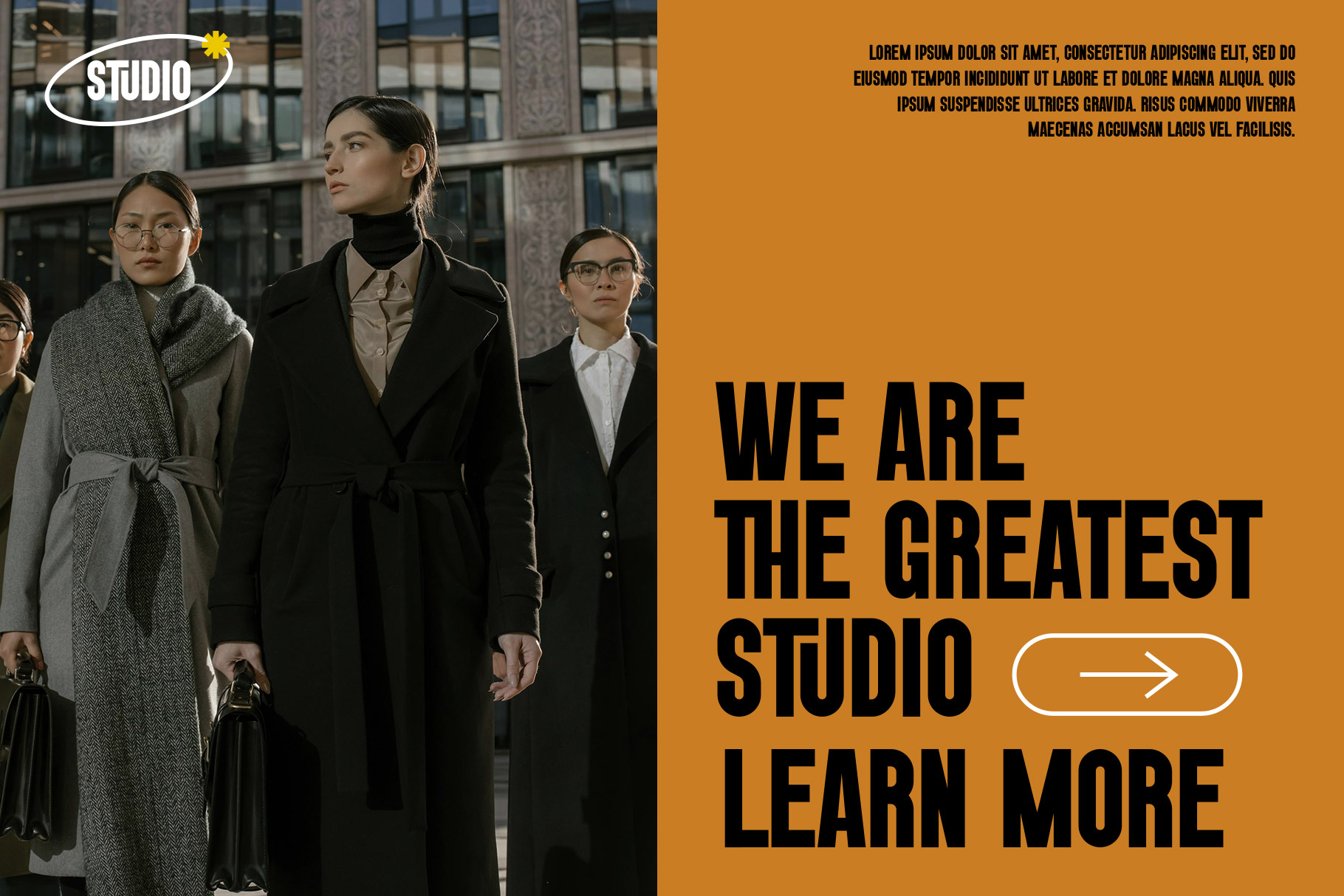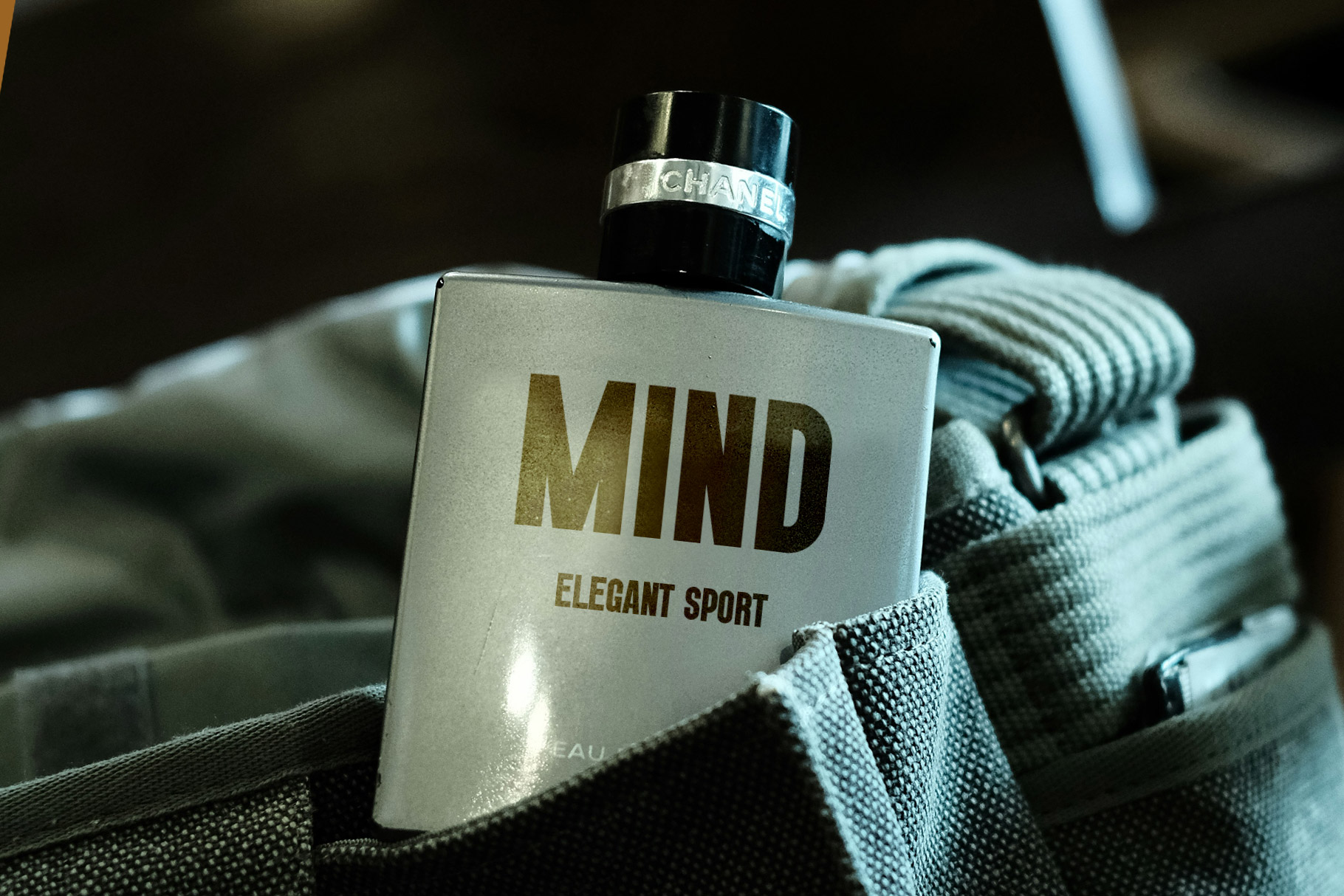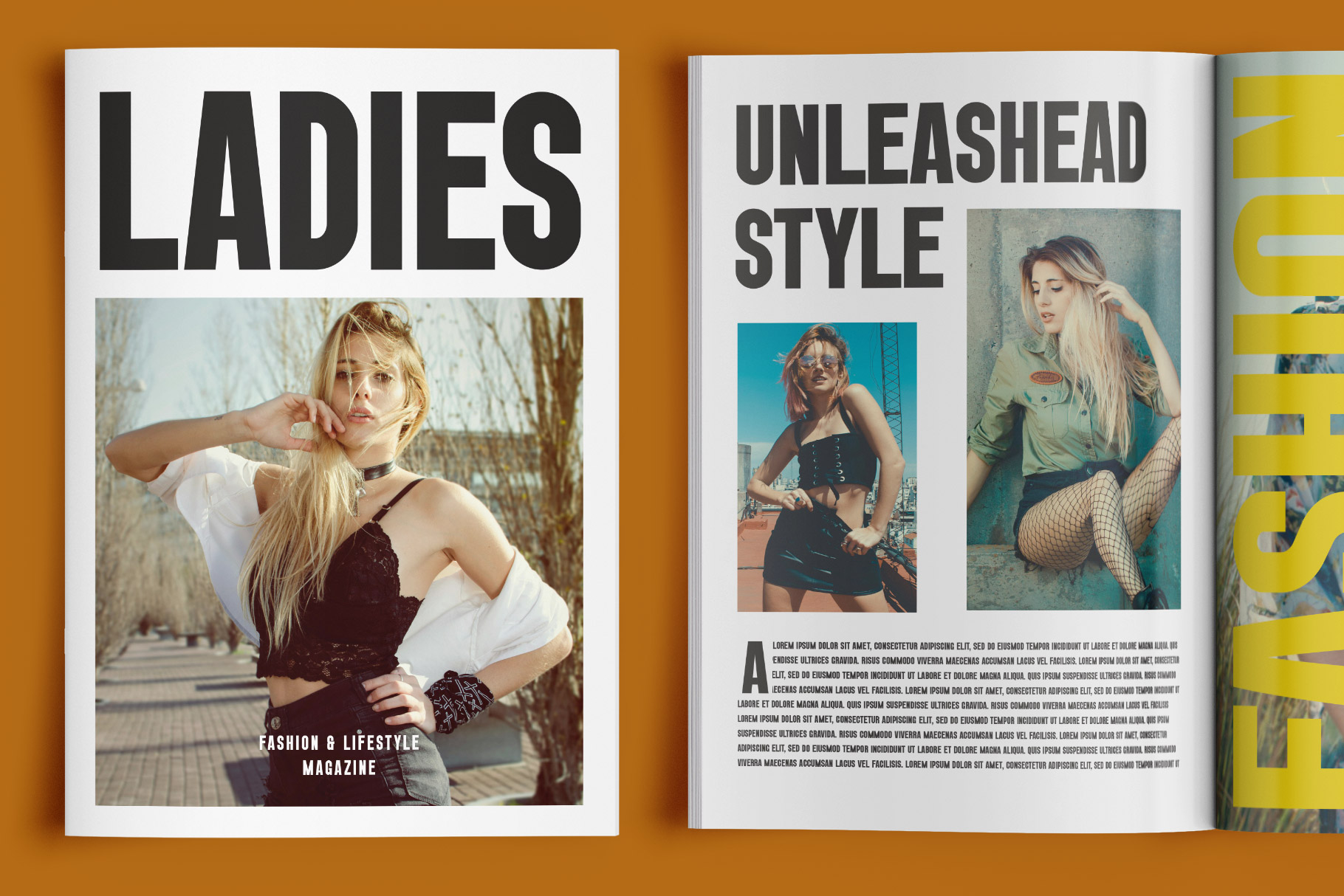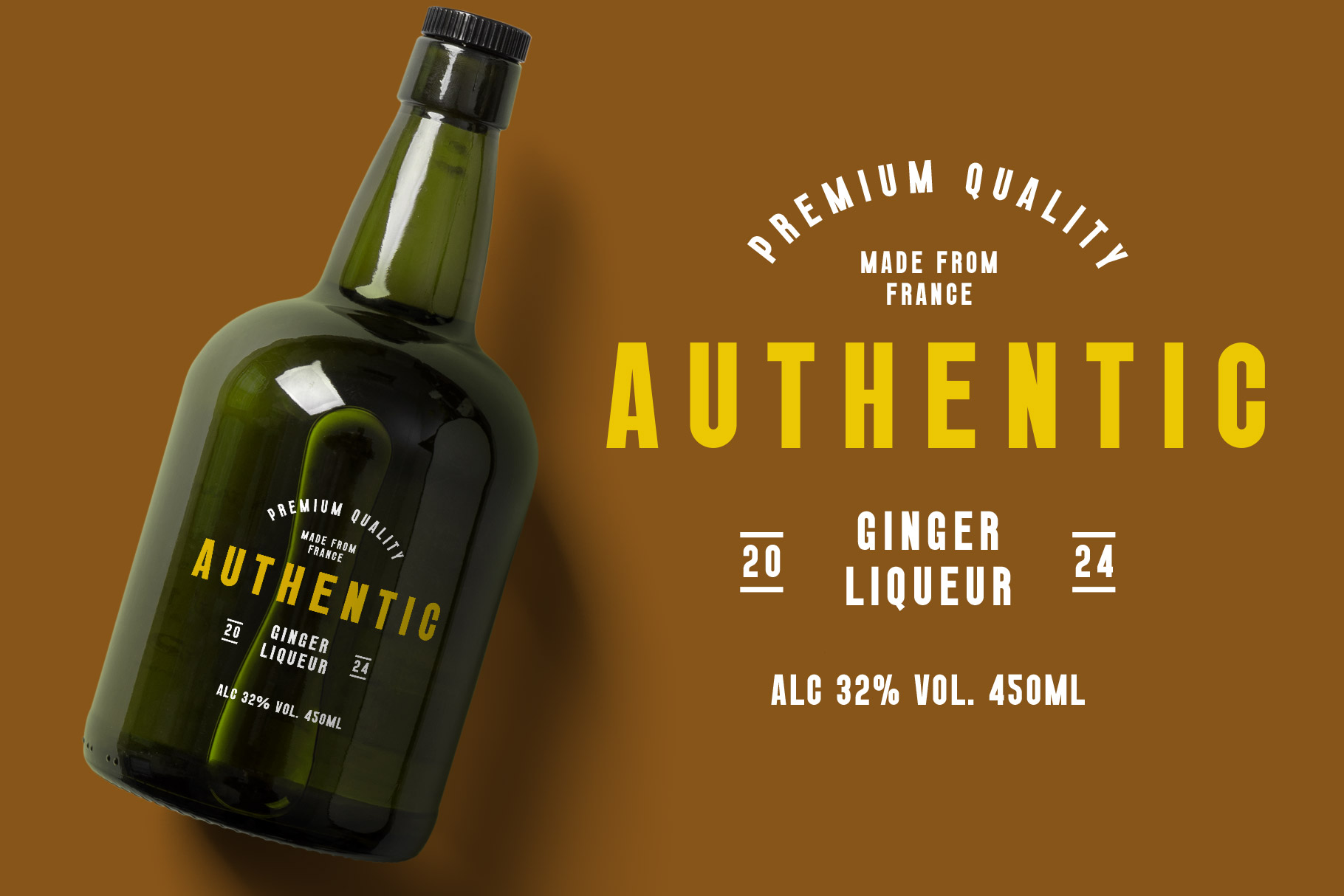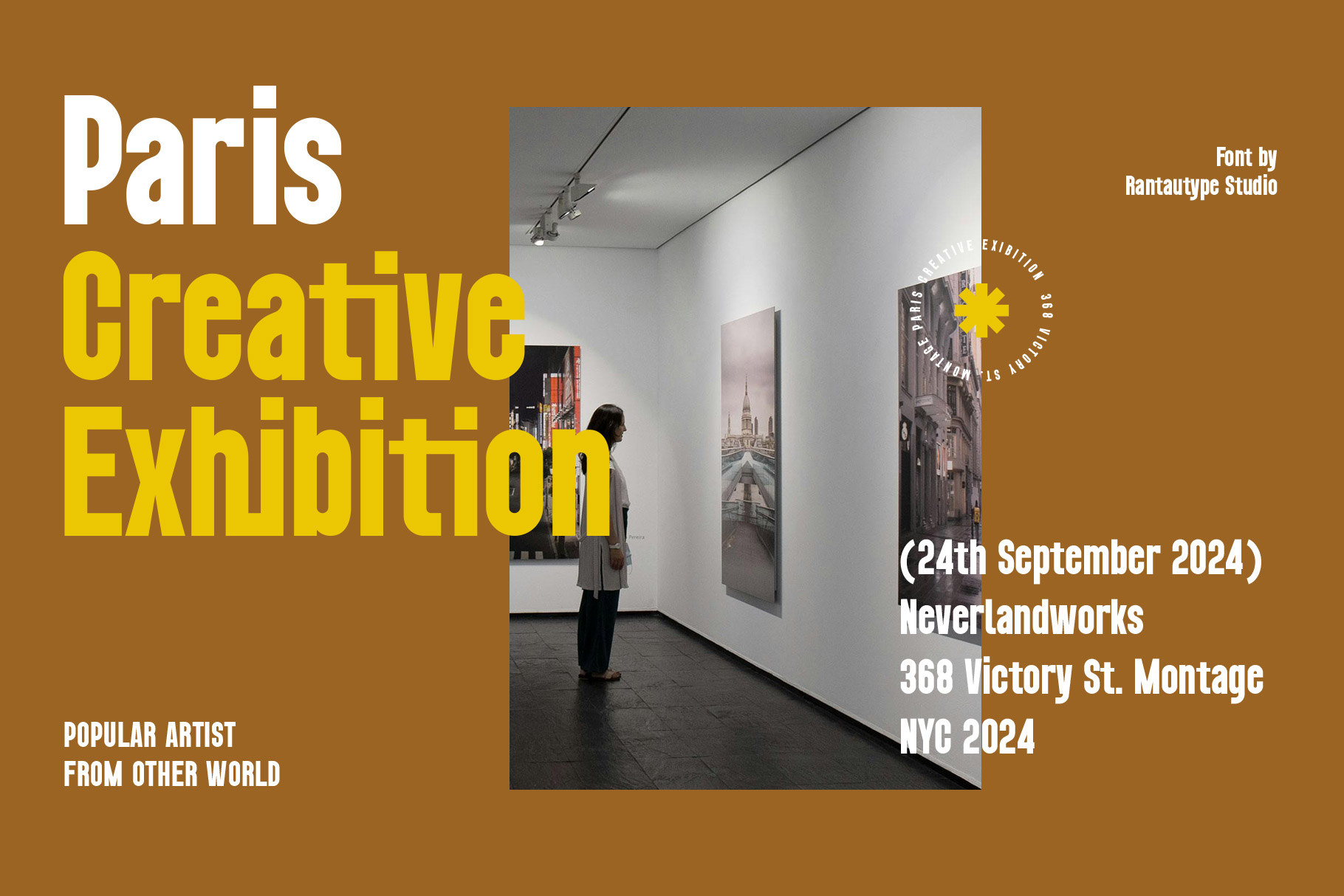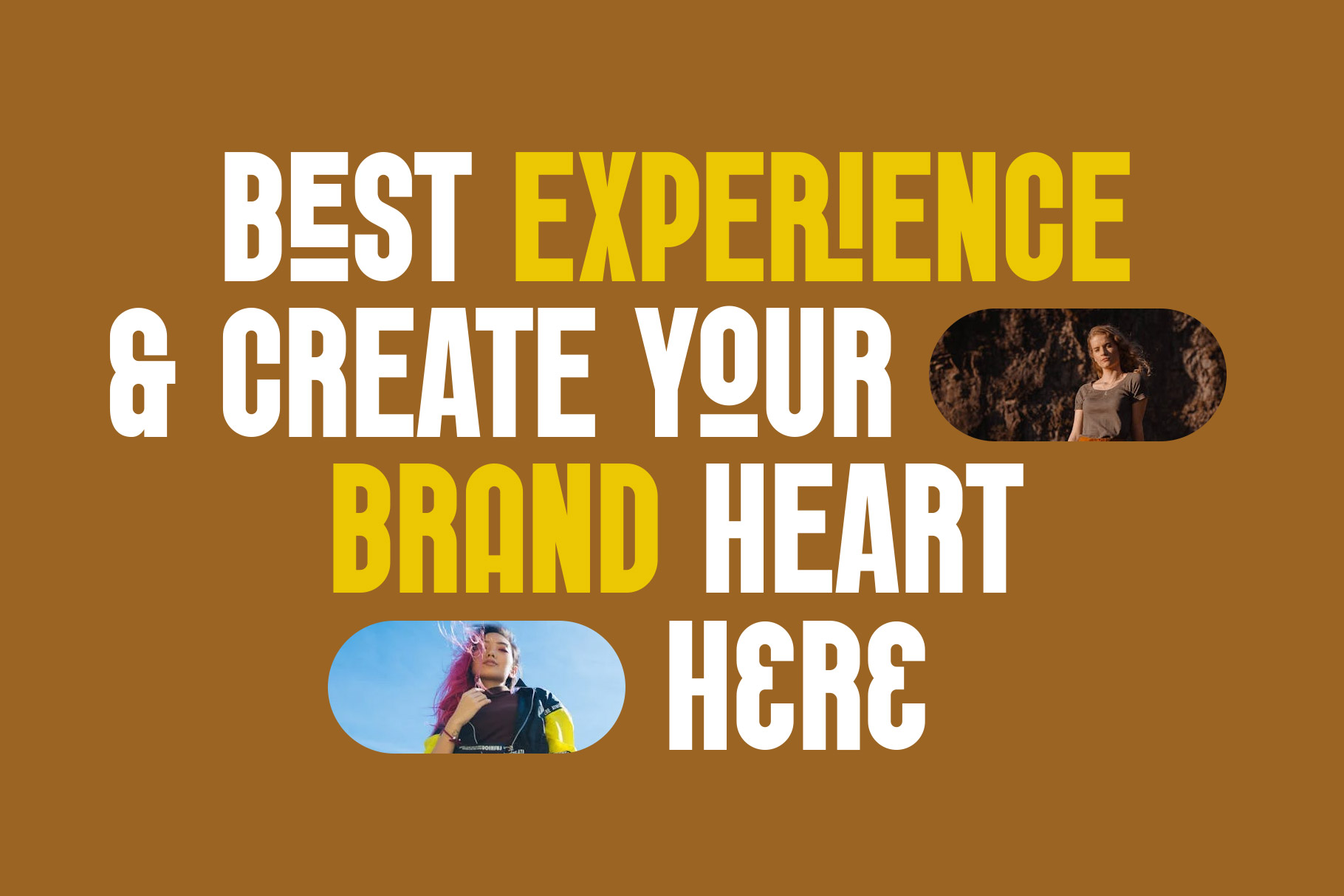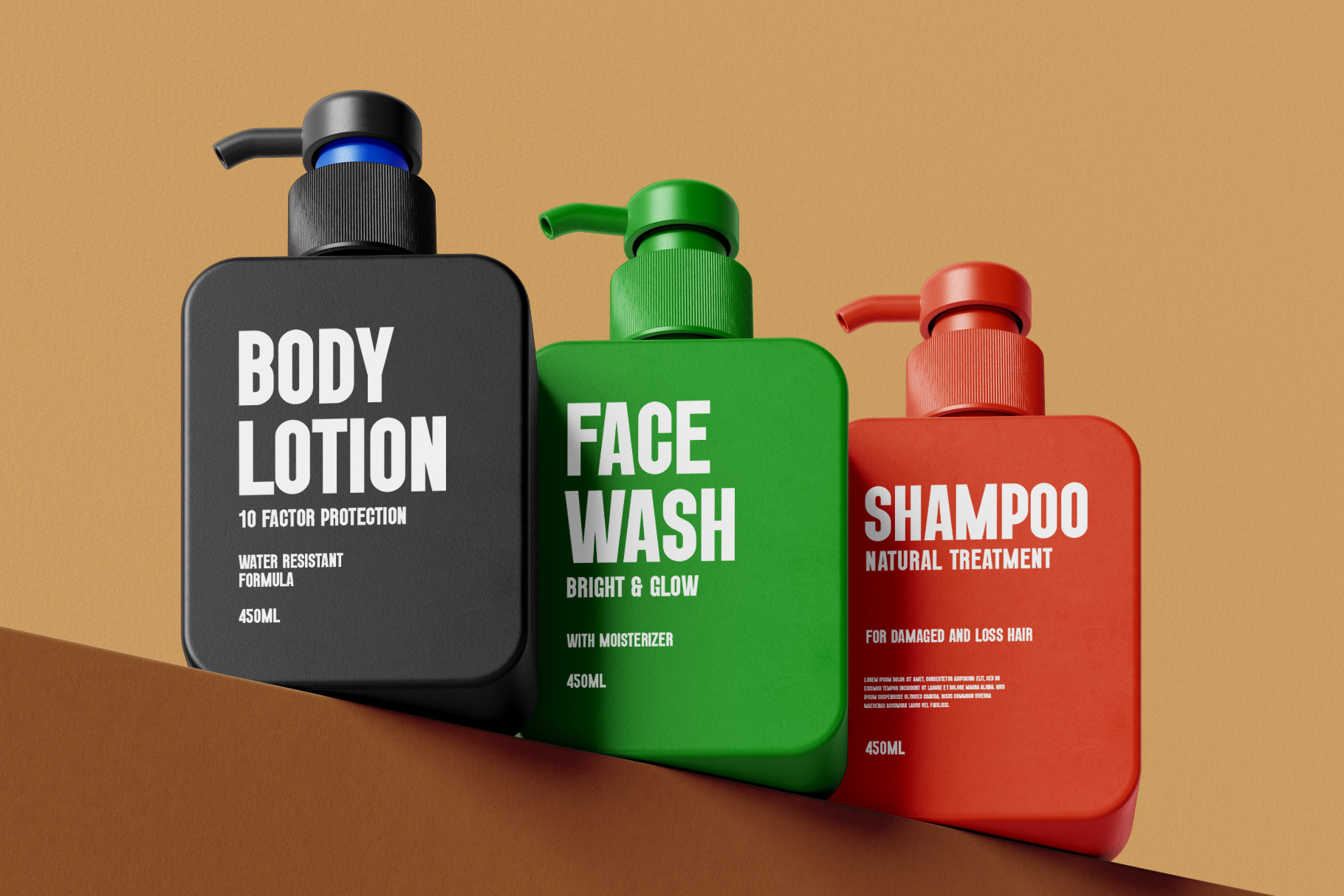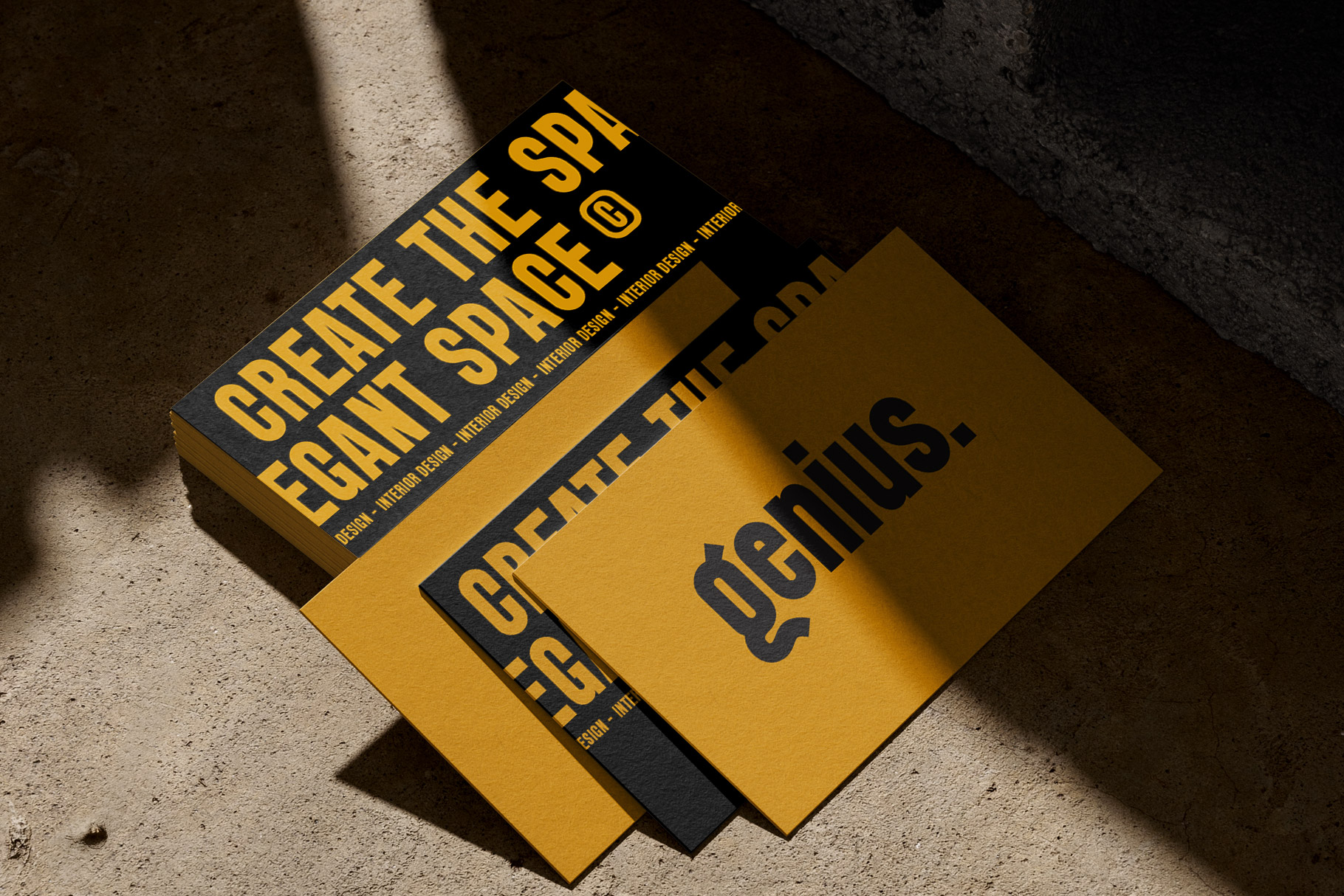
Brinema Bold Condensed Sans Font
Brinema is perfect condensed sans serif font with strong geometry shape. Brinema come with modern and elegant character to make awesome design project. Brinema bring aesthetic typography to readability.
Brinema is a perfectly choice for any creative endeavor, chic, lifestyle design such as logotype, advertisements, watermark on photography, stationery, branding project, display and magazine, invitation, corporate brand, product design, label, business project and many other project with modern and elegant touch.